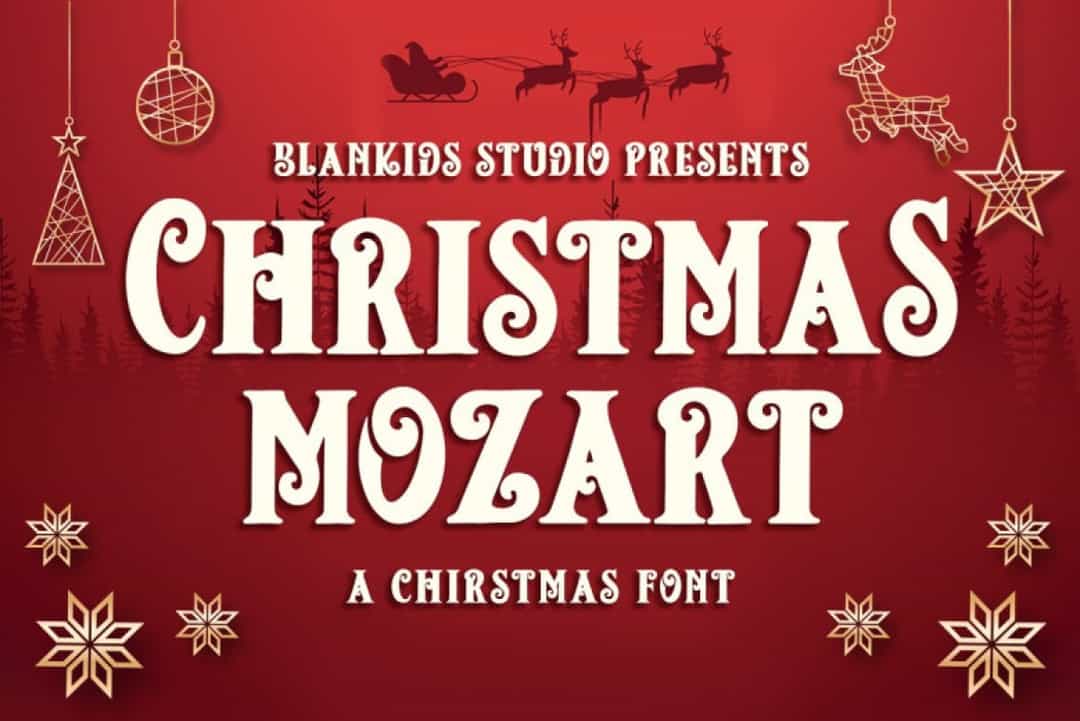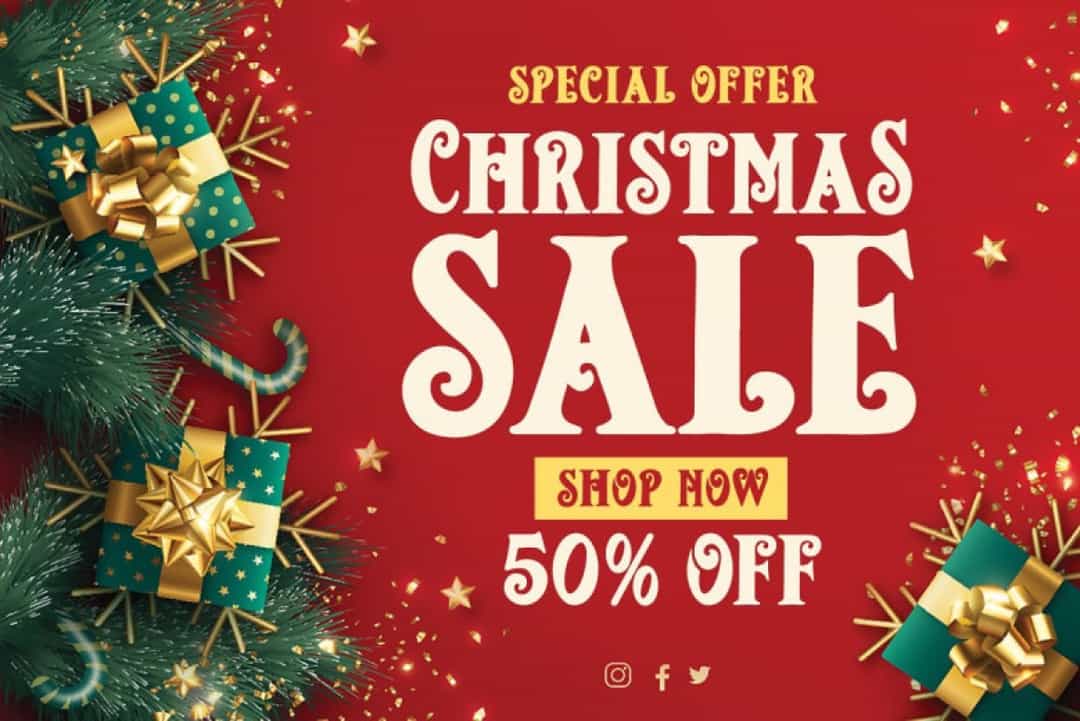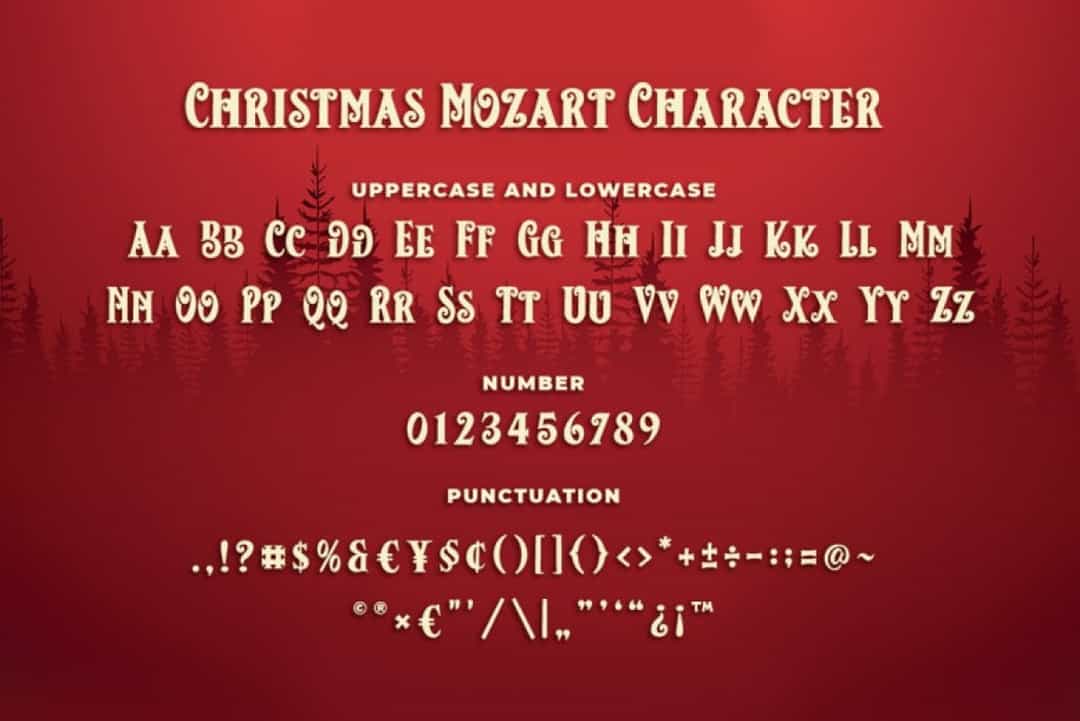
Discover Christmas Mozart Font, part of the Serif Christmas collection—a versatile and unique font perfect for adding a personal touch to your projects. Download it for free and enjoy crafting designs with style, from invitations to social media posts. This font is available exclusively for personal use, giving you the freedom to create without limits. Unlock your creativity with Christmas Mozart Font today!
Christmas Mozart is an elegant serif font designed in the playful calligraphy style that’s ideal for creating fun and attractive designs. Boasting top quality aesthetics, Christmas Mozart can be used on posters, book covers packaging, product logotypes and much more!